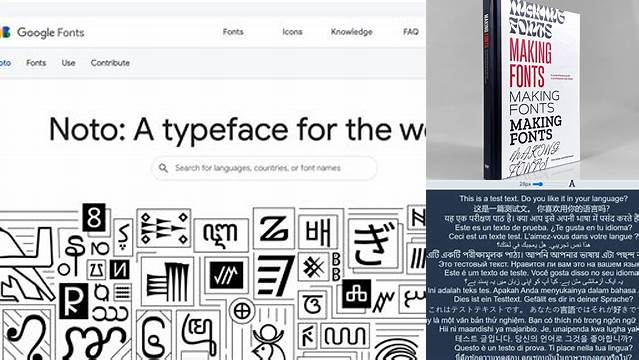
Multi Language Fonts: A Comprehensive Guide
Hey guys! Ever wondered about the magic behind displaying different languages beautifully on your website or in your designs? It's all about multi language fonts! In this comprehensive guide, we're diving deep into the world of fonts that support various languages, covering everything from the basics to the nitty-gritty details. So, buckle up and let's get started!
H2: Understanding Multi Language Font Support
Alright, let's kick things off with the fundamentals. What exactly does it mean for a font to support multiple languages? Well, it boils down to the character set it includes. A font needs to have glyphs (the visual representations of characters) for all the letters, numbers, symbols, and diacritics used in a particular language. If a font only supports English, it'll have glyphs for the Latin alphabet. But if you want to display languages like Chinese, Arabic, or even accented European languages, you'll need a font with a much wider range of glyphs. Multi language fonts are designed to do just that, making them essential for global communication.
H3: The Importance of Character Sets in Font Design
Character sets are like the DNA of a font. They dictate which characters can be displayed. For example, a font based on the ASCII character set will only support basic English characters. However, character sets like Unicode are much more comprehensive, encompassing virtually all writing systems used today. Unicode is the gold standard for multi language font support because it can handle everything from emojis to complex scripts like Devanagari (used for Hindi). So, when choosing a font for your project, always check its character set to ensure it supports all the languages you need. This is crucial for creating inclusive and accessible content for a global audience.
H3: Common Character Encoding Standards for Fonts
Now, let's talk encoding! Character encoding standards are like the instruction manuals for telling computers how to interpret the characters in a font. Think of it as the bridge between the glyph and the digital representation. UTF-8 is the most widely used encoding standard today, and for good reason. It's a variable-width encoding, meaning it can efficiently represent characters from almost any language. Other encoding standards include UTF-16 and UTF-32, which use different numbers of bits to represent characters. But for most multi language font applications, UTF-8 is the way to go. It's efficient, compatible, and ensures your text displays correctly across different platforms and devices.
H2: Identifying Fonts with Multi Language Capabilities
Okay, so how do you actually find these elusive multi language fonts? It's not always obvious just from looking at a font! One of the best ways is to check the font's specifications. Most font foundries and online font repositories will list the languages supported by a font. Look for terms like "Unicode support," "Extended Latin," or specific language names like "Cyrillic" or "Greek." Another helpful trick is to try typing in different languages using the font. If the characters display correctly, you're in good shape. If you see boxes or question marks, it's a sign that the font doesn't support that language. It's always better to test thoroughly before committing to a font for your project.
H3: Checking Font Specifications for Language Support
Digging into the font specs is key to finding a truly multi language font. You'll want to look for details about the character set, encoding, and specific language support. Many font foundries provide detailed information on their websites, often including charts showing which characters are included in the font. Pay close attention to whether the font supports the specific languages and scripts you need. For example, if you're working on a project that requires both Simplified and Traditional Chinese, you'll need to ensure the font includes glyphs for both. Don't just assume a font is multi-lingual; always verify the specifications.
H3: Online Resources for Finding Multi Language Fonts
The internet is your best friend when it comes to finding multi language fonts. There are tons of online resources where you can search for fonts based on language support. Websites like Google Fonts, Adobe Fonts, and Font Squirrel offer extensive libraries with filtering options that allow you to narrow down your search. You can also find specialized font foundries that focus on specific languages or scripts. These resources often provide previews of the font in different languages, making it easier to see if it meets your needs. Don't be afraid to explore and experiment with different options!
H3: Testing Fonts with Different Language Characters
Okay, you've found a font that seems multi-lingual, but how do you know for sure? The best way to verify is to test it! Try typing in different languages and scripts using the font. Open up a text editor or your design software and start experimenting. Copy and paste text from different languages to see how the font renders it. Pay attention to any missing characters, rendering issues, or unexpected ligatures. This hands-on testing is crucial for ensuring your chosen font is truly up to the task. Remember, a little testing can save you a lot of headaches down the road!
H2: Best Practices for Using Multi Language Fonts
So, you've got your multi language fonts sorted β awesome! But using them effectively is a whole other ballgame. Consistency is key, guys. Choose a font family that works well across all your target languages. This helps maintain a cohesive brand identity. Also, think about readability. A font that looks great in English might not be as legible in Arabic or Chinese. Consider the specific needs of each language and choose fonts accordingly. And finally, always test your fonts across different platforms and devices to ensure everything displays correctly.
H3: Ensuring Readability in Different Languages
Readability is paramount, especially when dealing with multi language fonts. What looks crisp and clear in one language might be a blurry mess in another. Factors like character spacing, line height, and overall font weight can significantly impact readability. For languages with complex scripts, like Arabic or Thai, it's crucial to choose fonts that are specifically designed for those scripts. Avoid fonts that are too decorative or stylized, as they can be difficult to read. When in doubt, err on the side of simplicity and clarity. Your goal is to make your content accessible and enjoyable for everyone, regardless of their language.
H3: Working with Complex Scripts (e.g., Arabic, Indic)
Working with complex scripts like Arabic or Indic languages requires a deep understanding of their unique typographic conventions. These scripts often have contextual forms, which means the shape of a character changes depending on its position in a word. They may also have complex ligatures and diacritics. When working with multi language fonts that support these scripts, it's crucial to choose fonts that are specifically designed for them and to use OpenType features to ensure correct rendering. Seek guidance from native speakers or typography experts to ensure you're using these scripts correctly and respectfully.